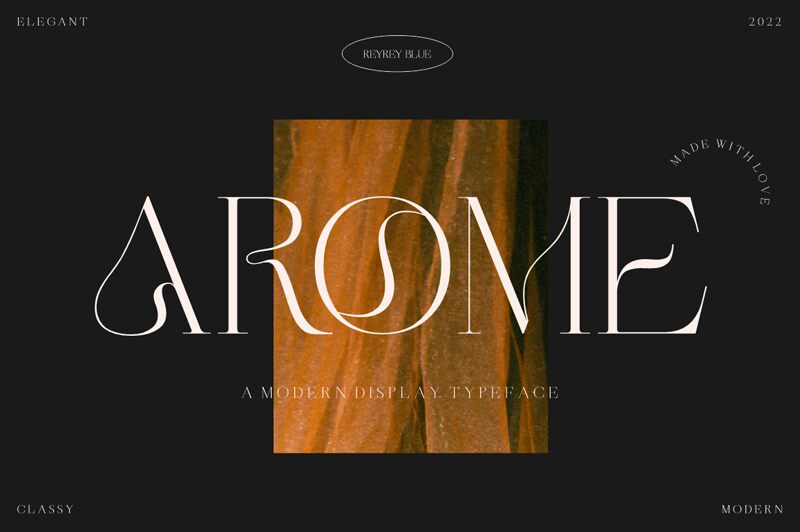
Arome Display font by ReyreyBlue is a light and refined display typeface embodying elegance and sophistication. It showcases a minimalistic style that combines modern design elements with a subtle vintage touch, creating an elegant visual composition. The stylish appearance makes it suitable for projects requiring exclusive titles, branding, headlines, and other eye-catching texts.
This free display font has multiple uses in hotel branding materials, product package designs including perfumes and cosmetics, restaurant business cards, menus designs for cafes or lounges and bars. It’s perfect as well for book cover titles of fashion magazines or blogs/publications related to lifestyle topics along with invitations for exclusive openings given its sophisticated style.